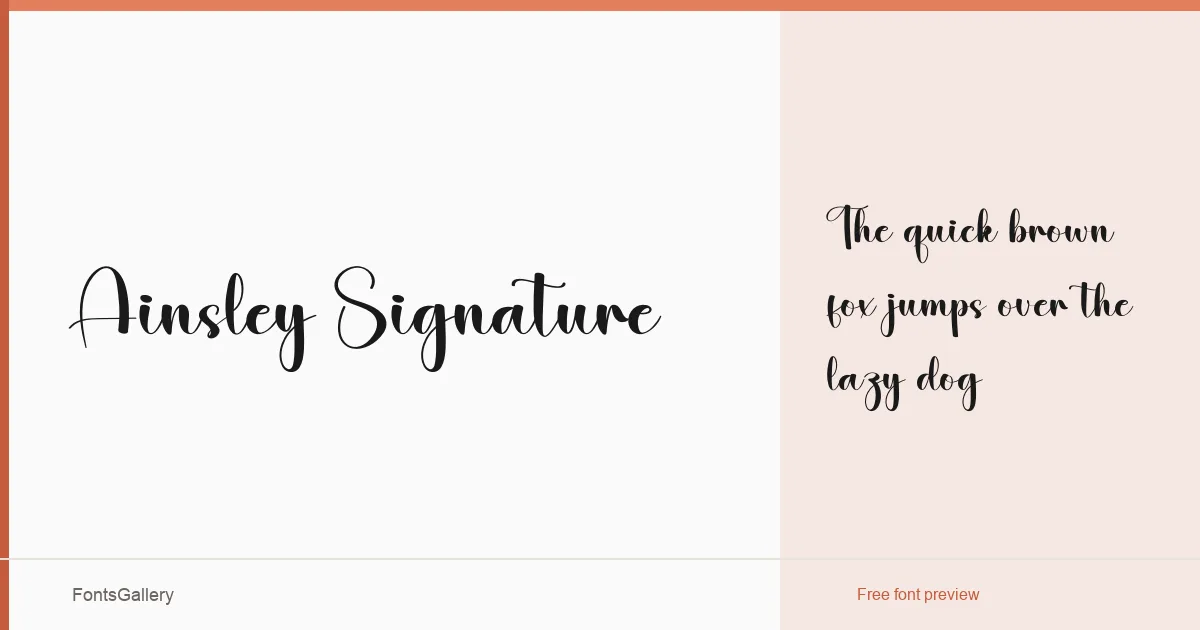
About Ainsley Signature Font
Ainsley Signature is a script typeface crafted by Scratchones Creative, designed to evoke a sense of refined elegance and timeless romance. With its fluid, handcrafted character, it brings a luxurious and classic sensibility to any design it graces. This font is ideal for projects that demand a sophisticated, personal touch.
Ainsley Signature features graceful, flowing letterforms characteristic of fine signature-style scripts, exuding an air of luxury and classic refinement. The sweeping strokes and delicate connections between characters lend it a romantic quality that feels both intimate and elevated. Its elegant rhythm and polished curves make each letter feel expressive and purposeful.
This typeface shines in applications such as logos, wedding stationery, invitation cards, greeting cards, and certificates, where an air of sophistication is essential. Its romantic and classic mood makes it a natural fit for bridal brands, luxury packaging, and formal event materials. For a harmonious typographic combination, Ainsley Signature pairs beautifully with Aresink or the clean neutrality of Helvetica.